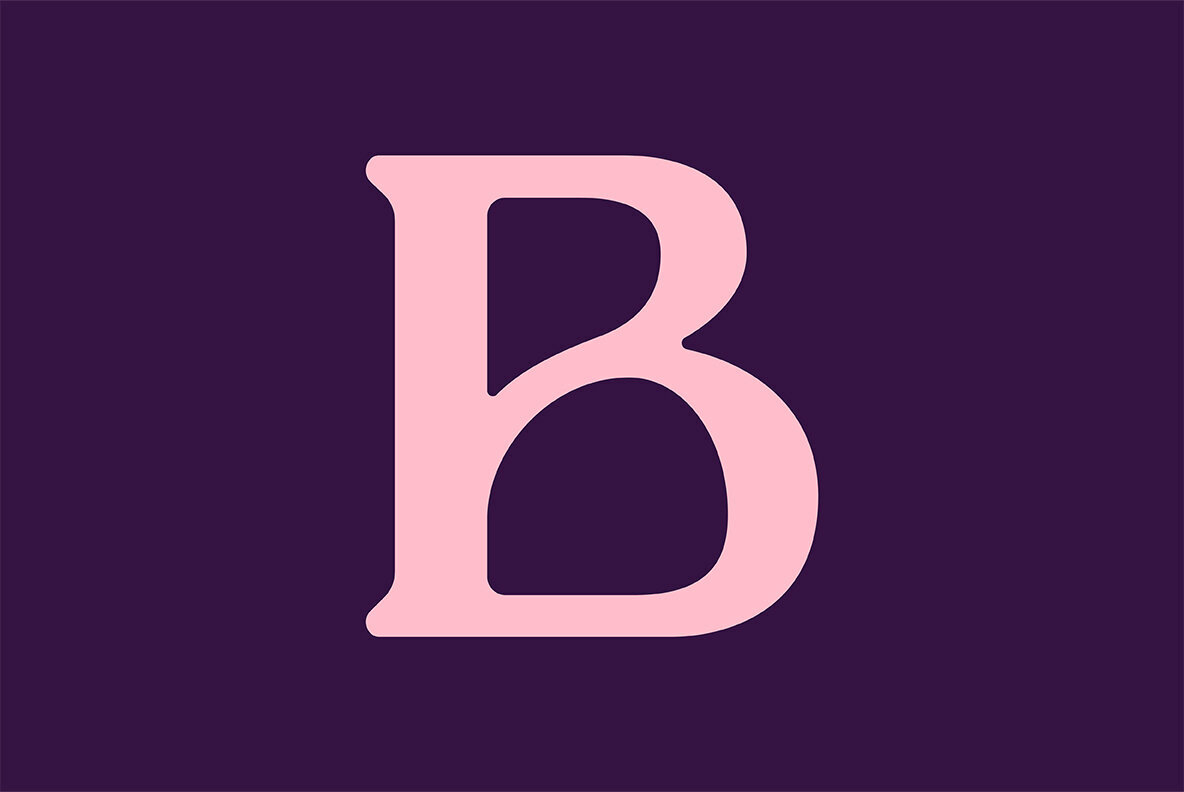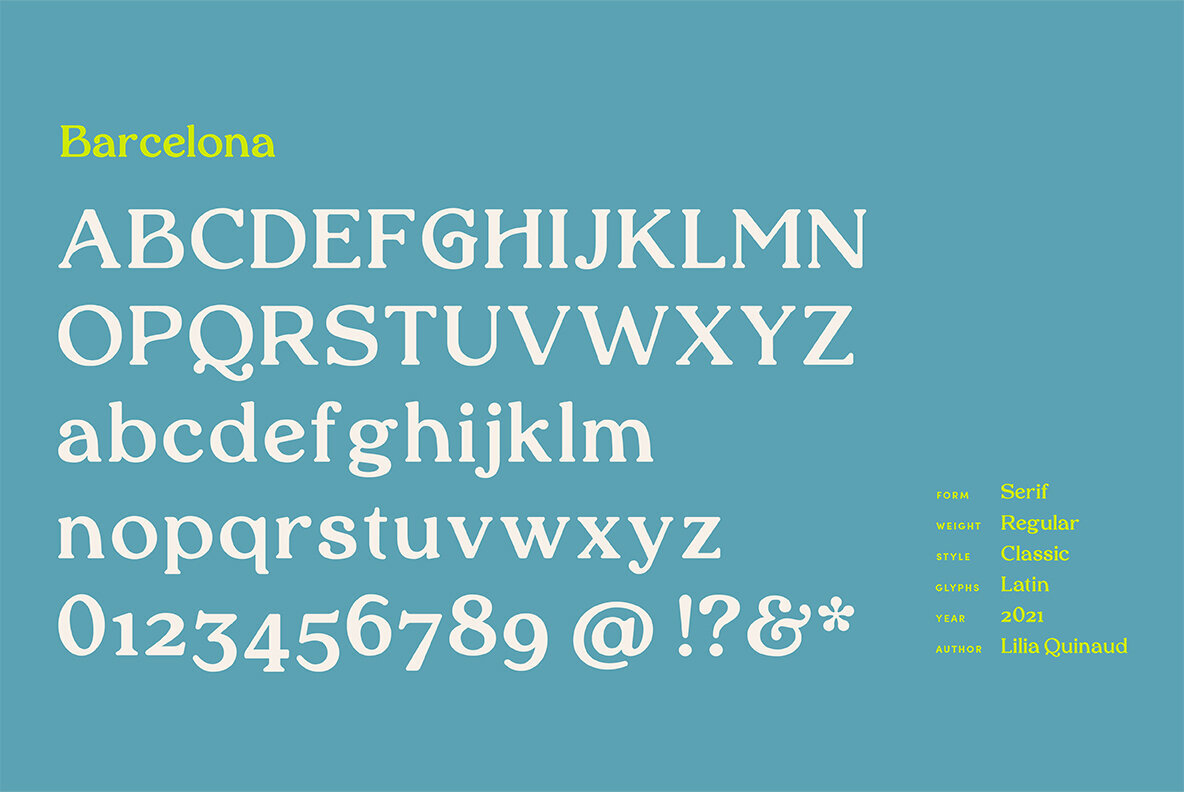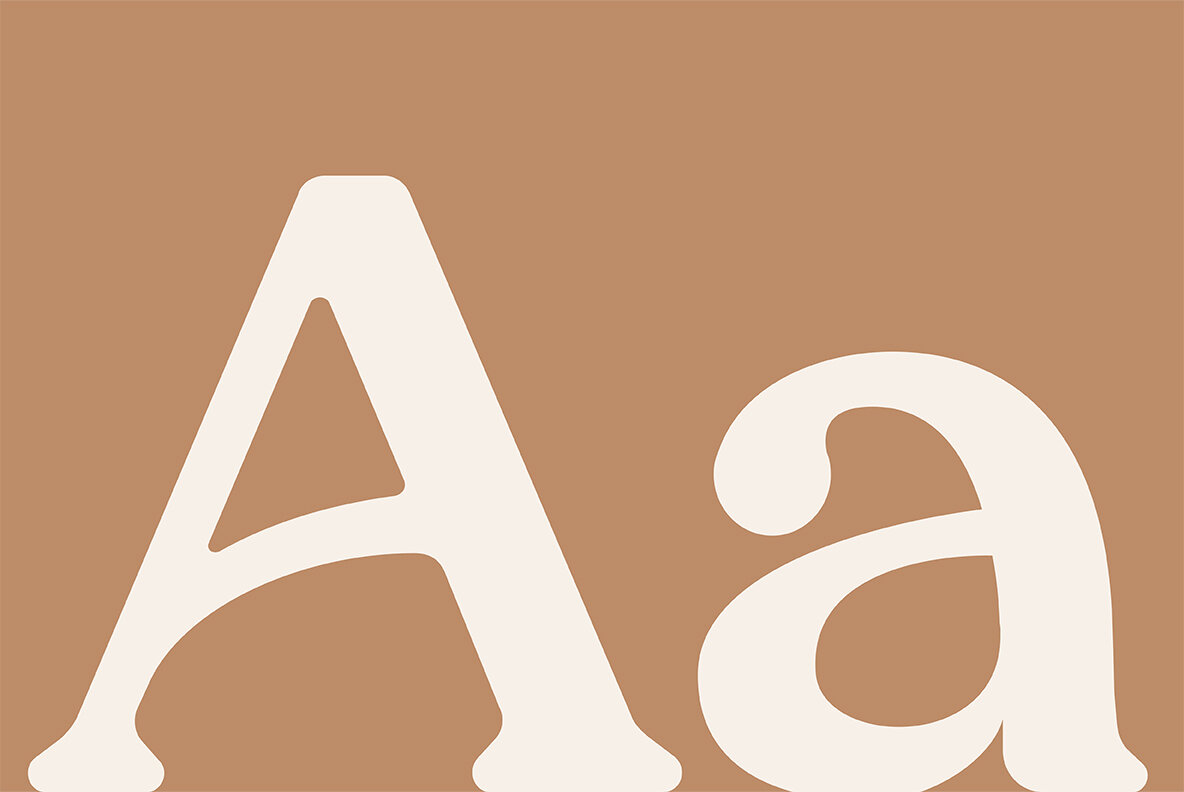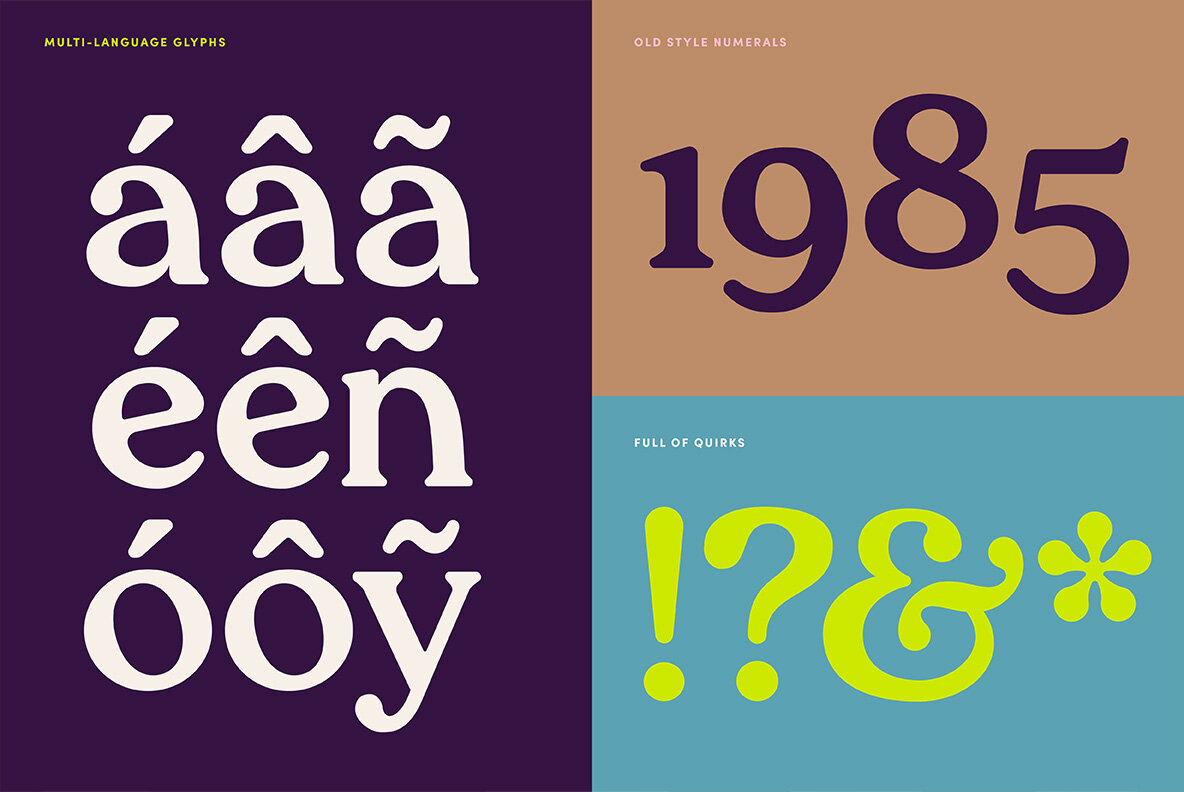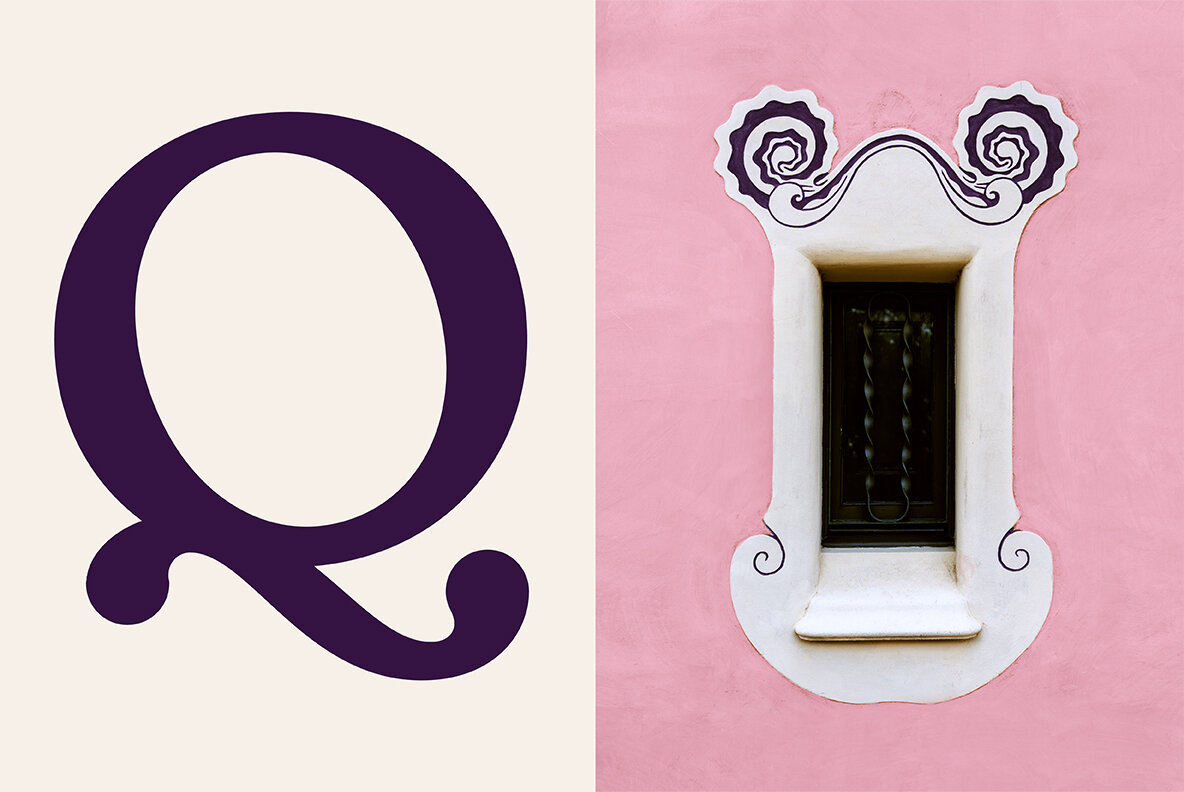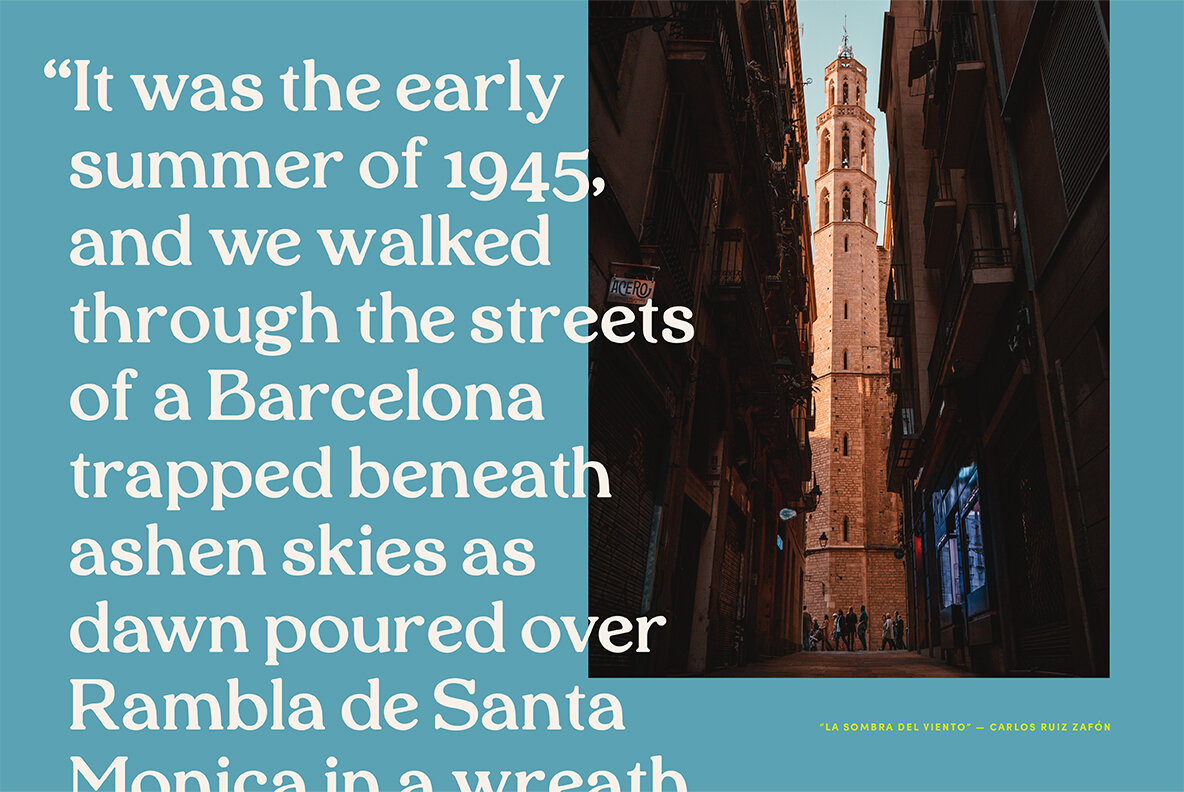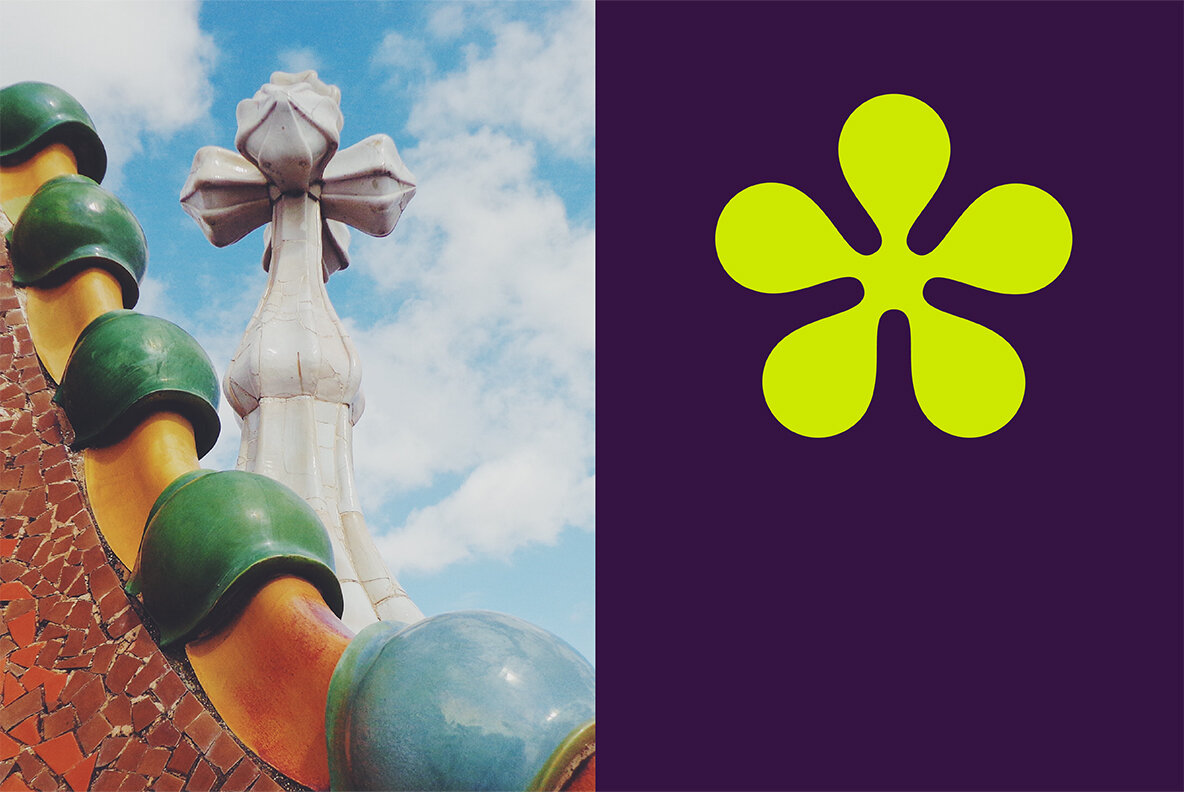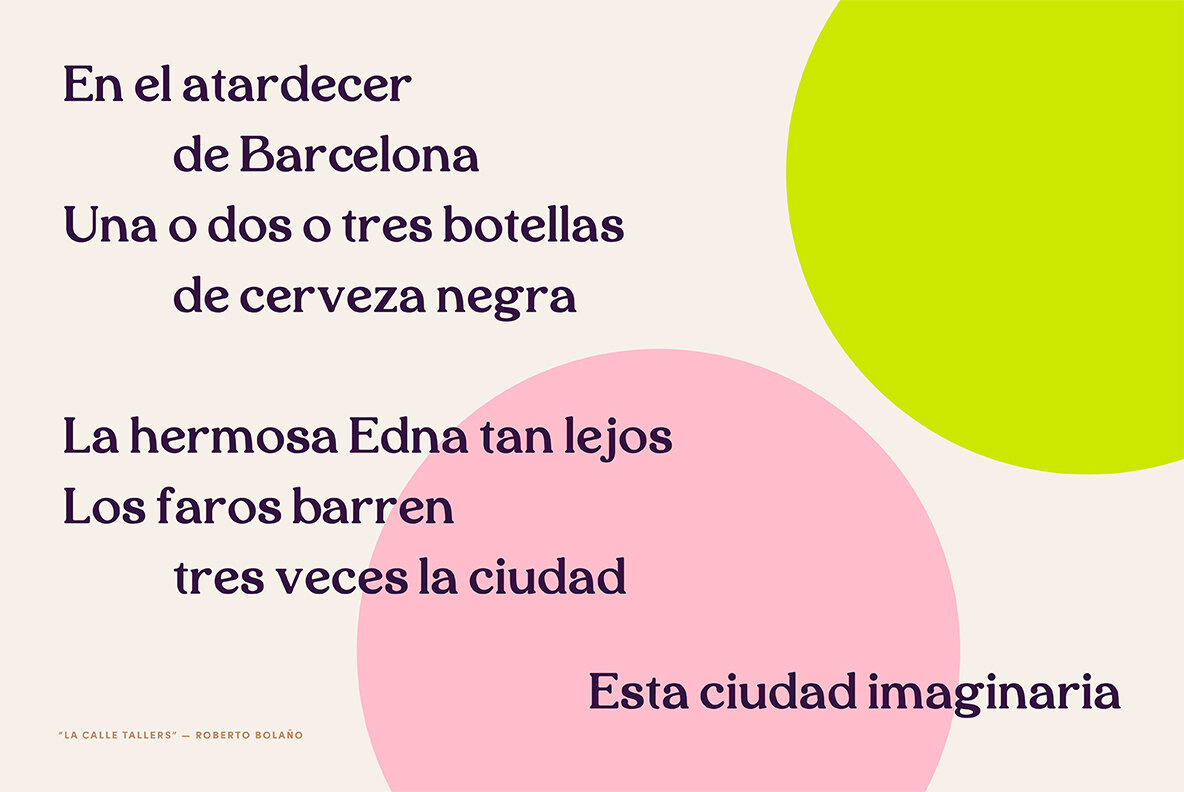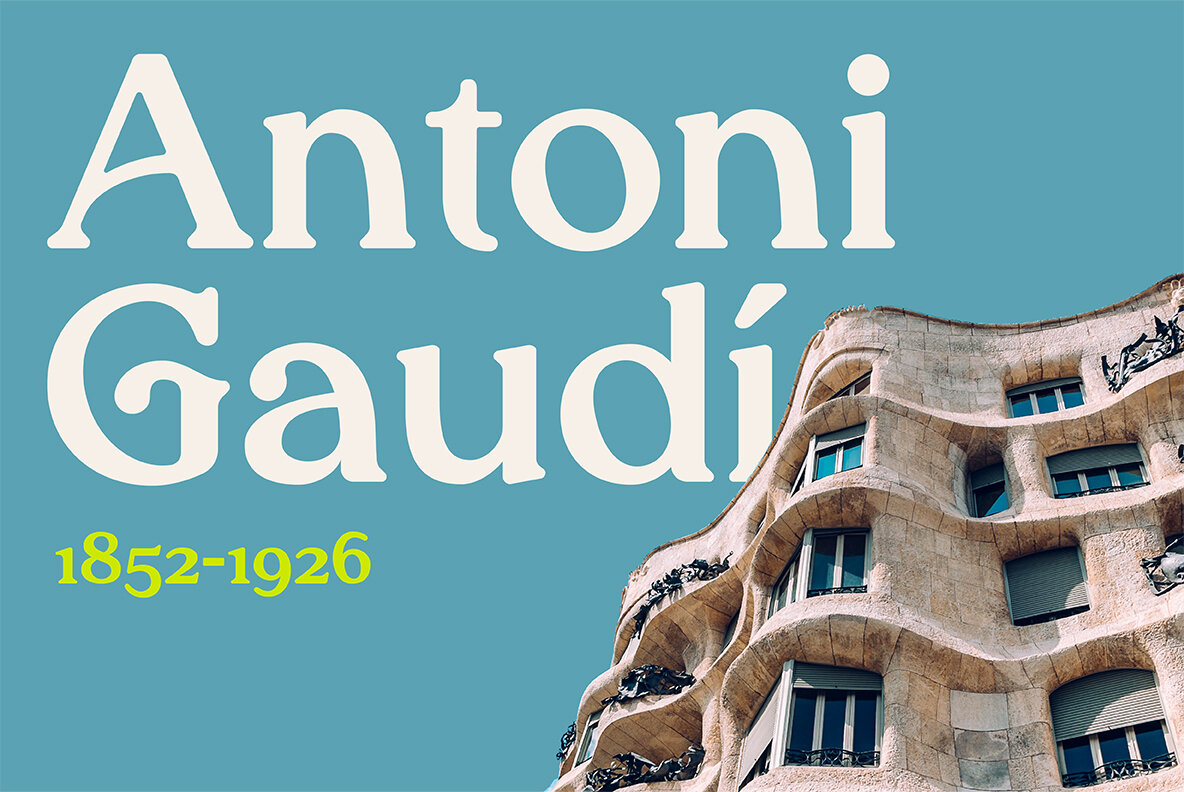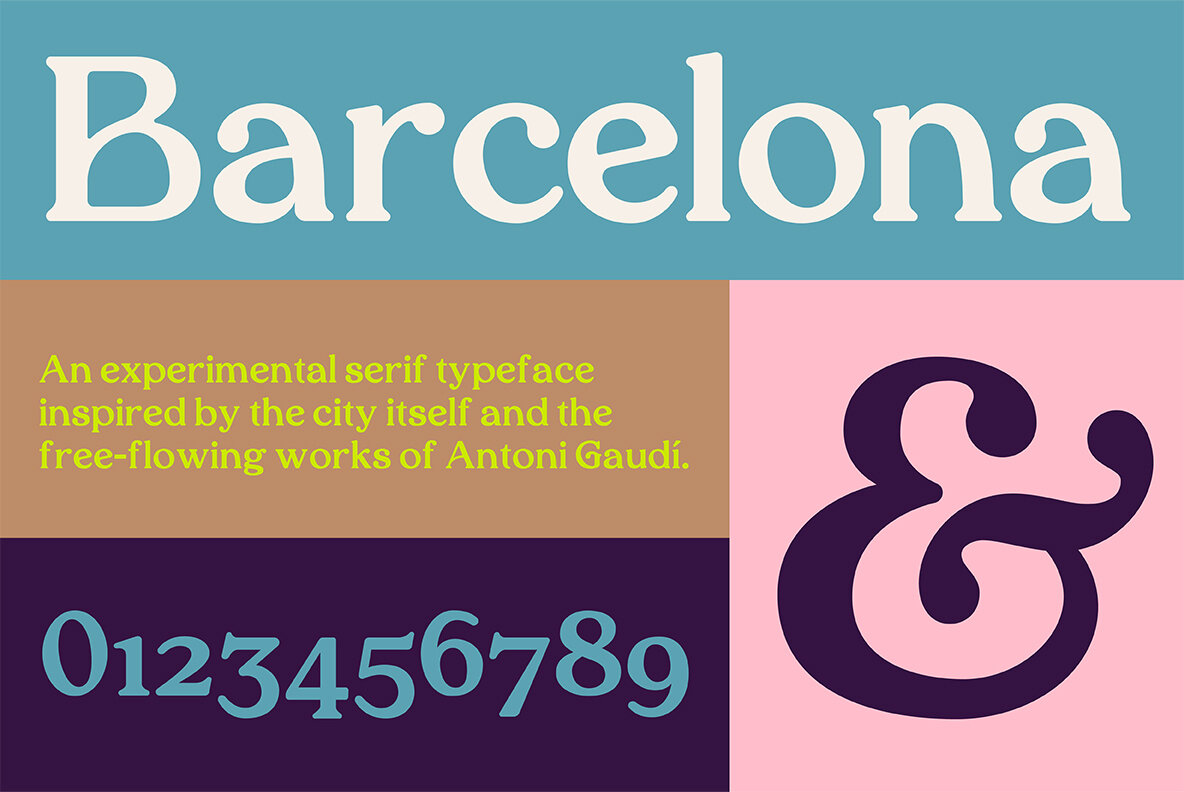
Barcelona Font
Barcelona Regular
Capturing the essence of a city known for its architectural marvels and artistic vibrancy, the Barcelona typeface draws inspiration from the very streets of its namesake. Born from the eclectic designs seen in its street signs and the unmistakable influence of Antoni Gaudí’s free-flowing structures, this typeface embodies both tradition and innovation, bringing a unique character to any design project.Barcelona: Typeface Inspired by the City's Vibrancy